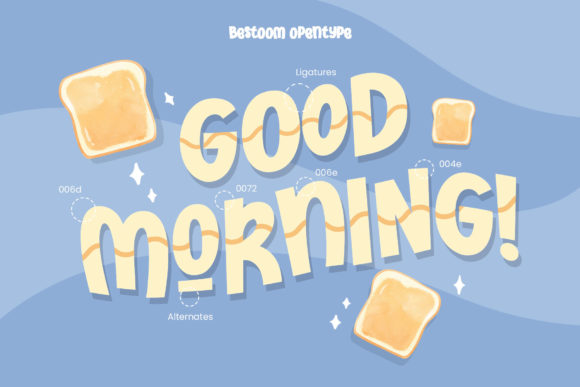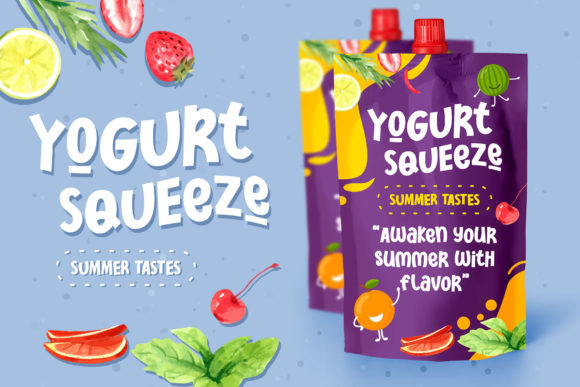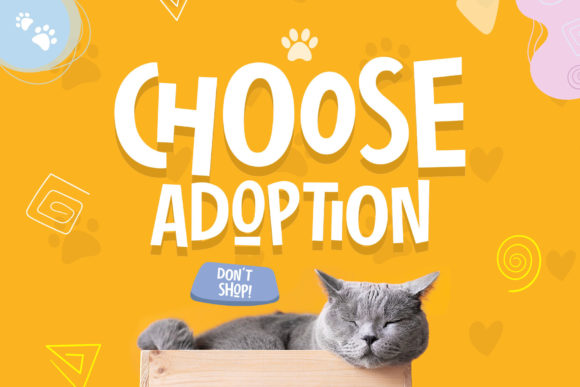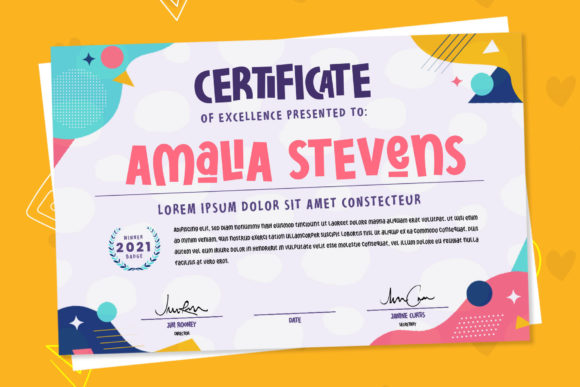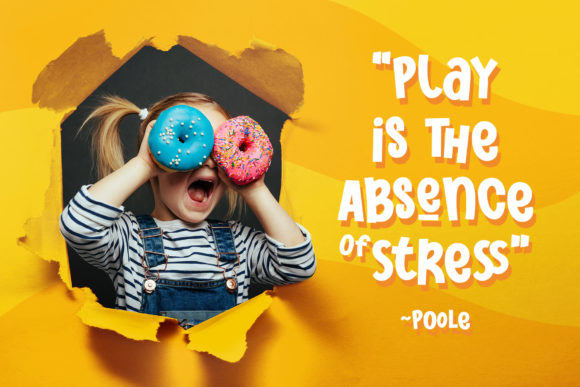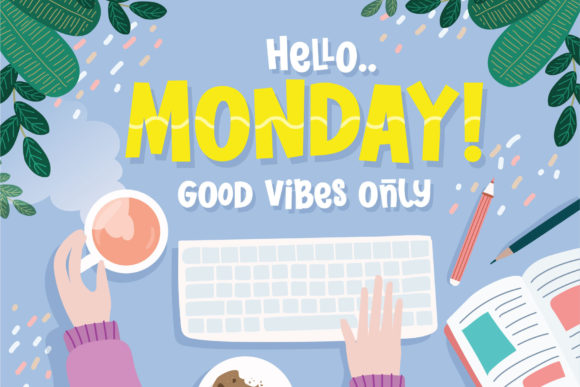
Introducing Bestoom Font: The Playful and Fun Display Font for Your Creative Projects
Are you looking for a font that can add a touch of playfulness and fun to your designs? Look no further than Bestoom Font! This amazing display font is perfect for cartoon-related designs, children’s games, and any other creation that requires a lovely touch. In this article, we’ll explore the features and benefits of Bestoom Font, and why it’s a must-have for designers and crafters.
What is Bestoom Font?
Bestoom Font is a playful and fun display font that is designed to bring a smile to your face. Its unique and quirky style makes it perfect for designs that require a touch of whimsy and personality. Whether you’re creating a logo, a poster, or a digital graphic, Bestoom Font is sure to make your design stand out.
Key Features of Bestoom Font
So, what makes Bestoom Font so special? Here are some of its key features:
- Playful and Fun Design: Bestoom Font has a unique and playful design that is sure to add a touch of fun to your designs.
- PUA Encoded: Bestoom Font is PUA (Private Use Area) encoded, which means you can access all of the amazing glyphs and ligatures with ease.
- Wide Range of Uses: Bestoom Font is perfect for a wide range of uses, including cartoon-related designs, children’s games, and any other creation that requires a lovely touch.
Benefits of Using Bestoom Font
So, why should you choose Bestoom Font for your next design project? Here are some of the benefits of using this amazing font:
- Adds a Touch of Personality: Bestoom Font adds a touch of personality and whimsy to your designs, making them stand out from the crowd.
- Easy to Use: Bestoom Font is easy to use and can be accessed with ease, thanks to its PUA encoding.
- Versatile: Bestoom Font is versatile and can be used for a wide range of designs, from logos and posters to digital graphics and more.
Who is Bestoom Font for?
Bestoom Font is perfect for designers and crafters who want to add a touch of playfulness and fun to their designs. Here are some examples of who can benefit from using Bestoom Font:
- Graphic Designers: Graphic designers can use Bestoom Font to create fun and playful designs for their clients.
- Illustrators: Illustrators can use Bestoom Font to add a touch of personality to their illustrations.
- Crafters: Crafters can use Bestoom Font to create fun and playful designs for their craft projects.